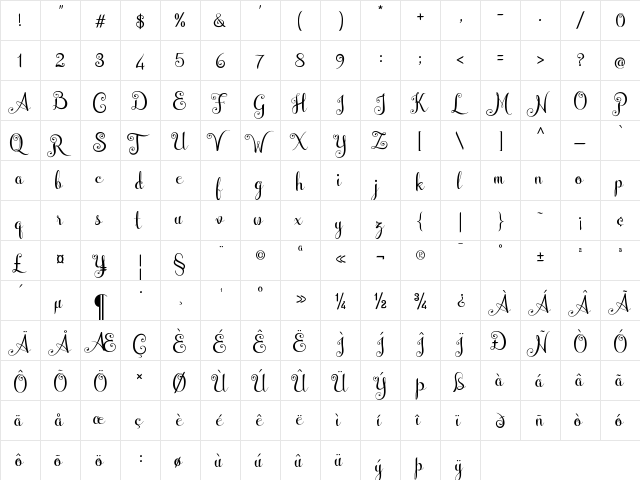
Wedding Font Regular
Design Context for Wedding Font Typeface
Wedding Font is a composed and adaptable typeface that performs quietly and consistently across a wide range of design contexts.